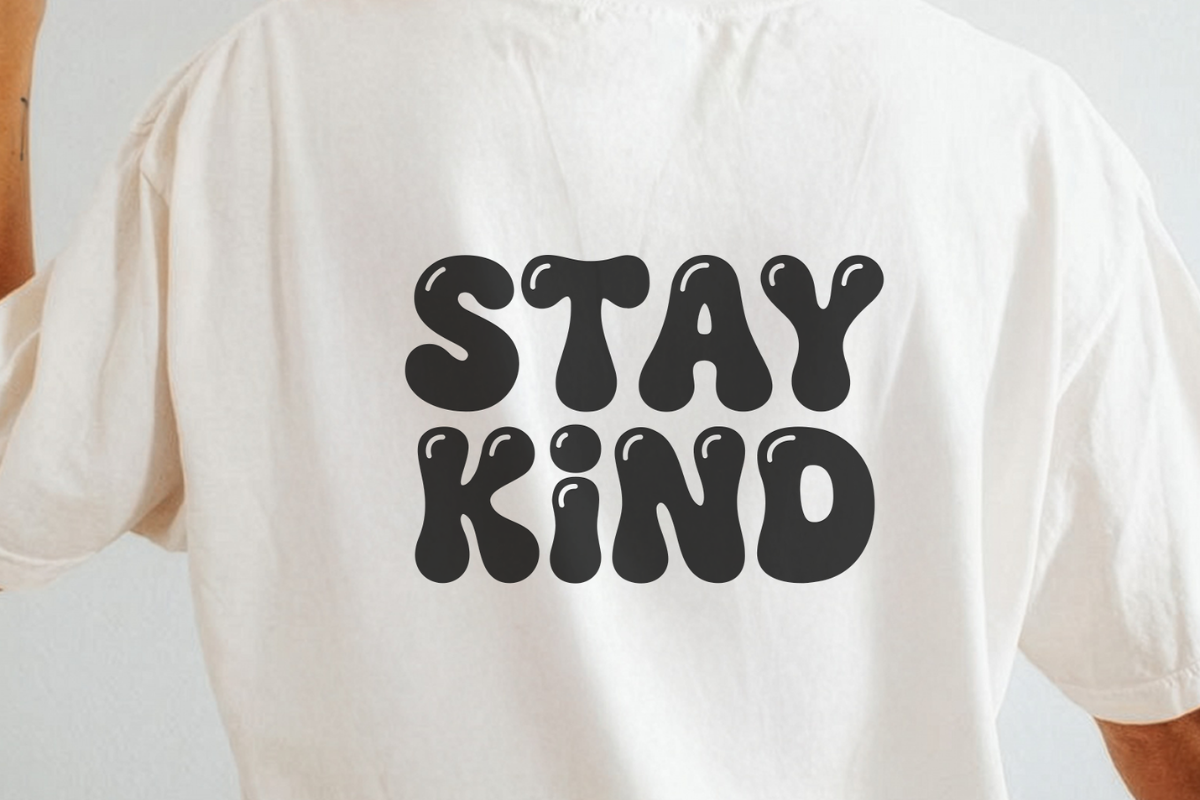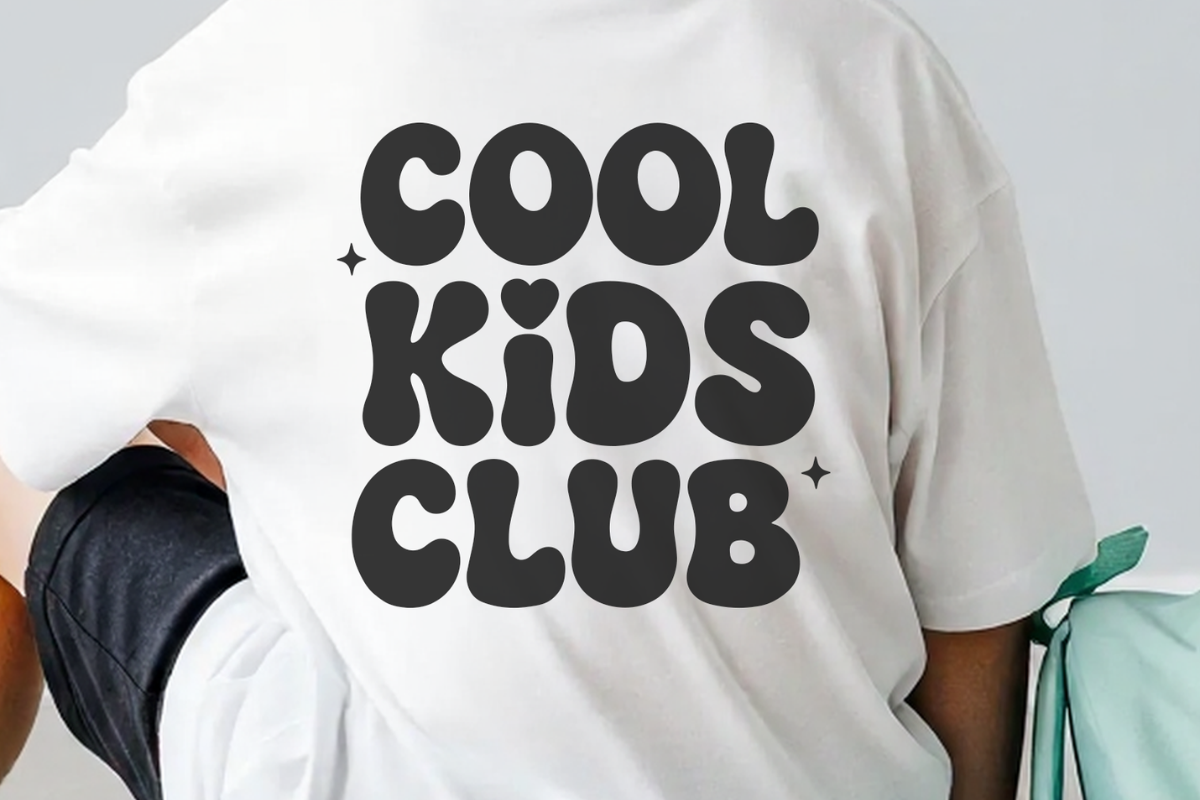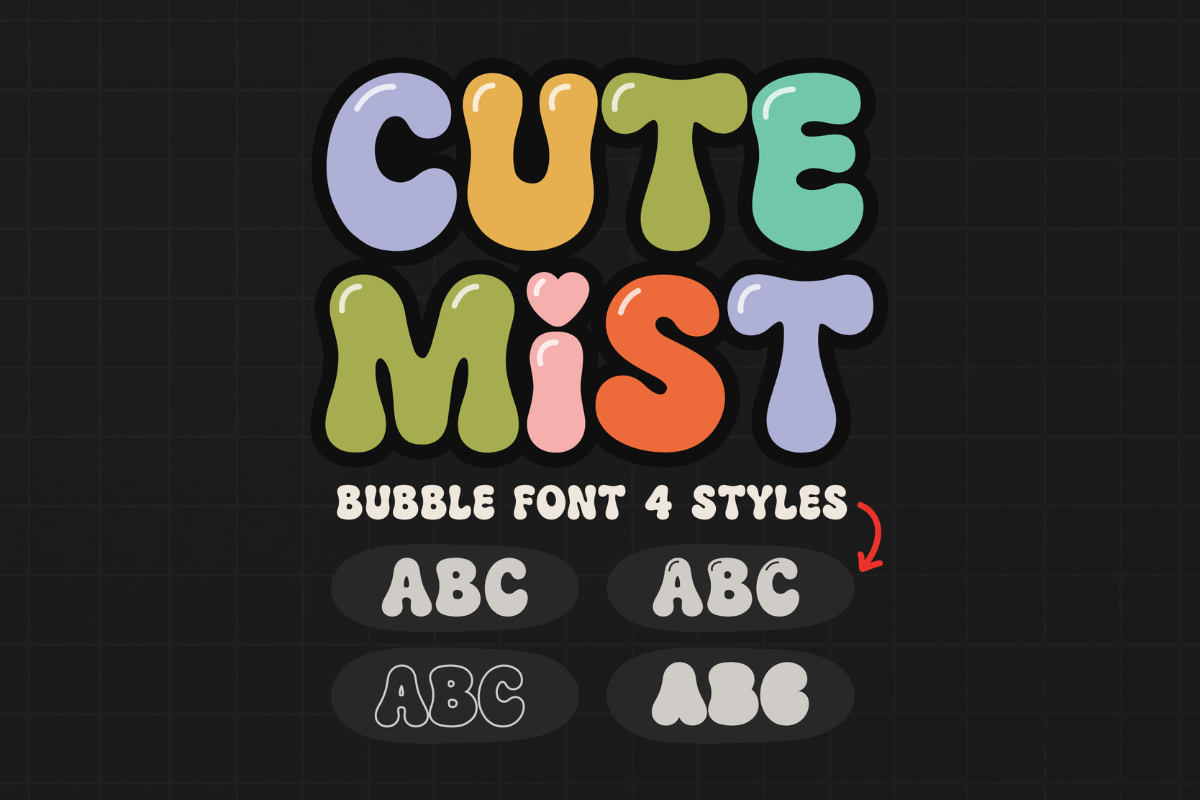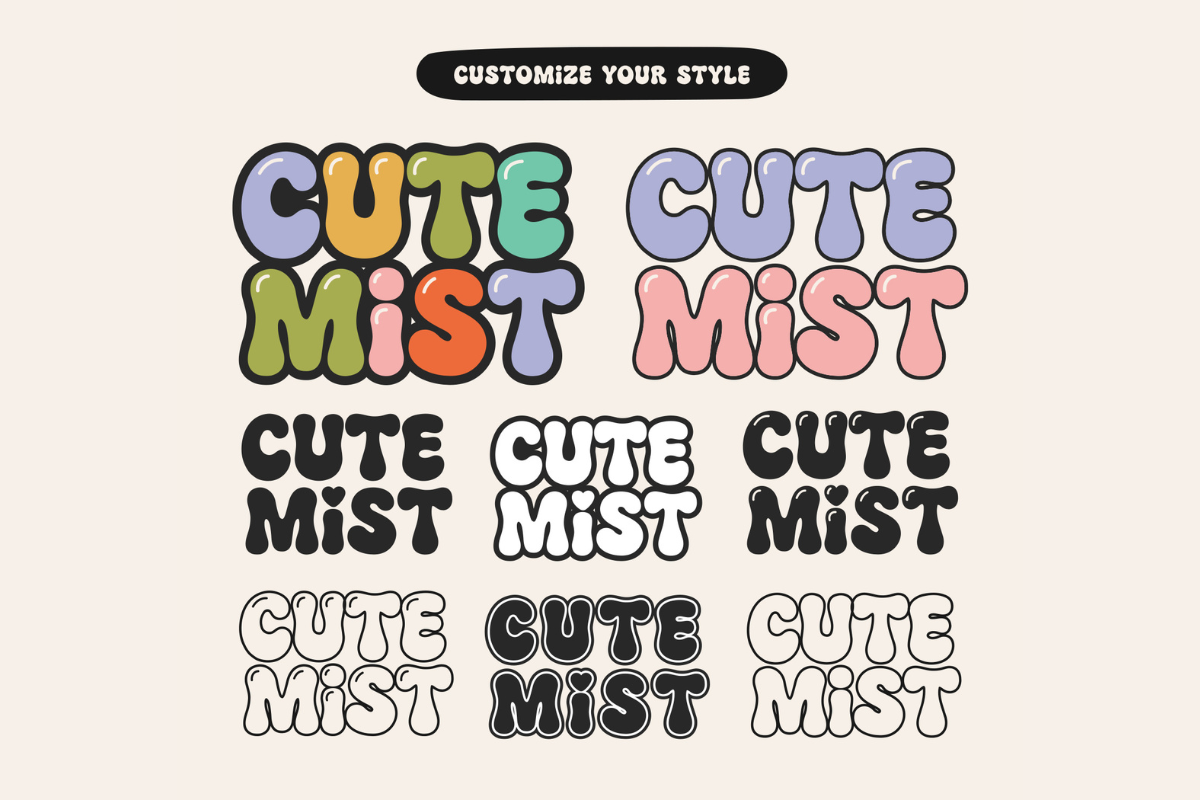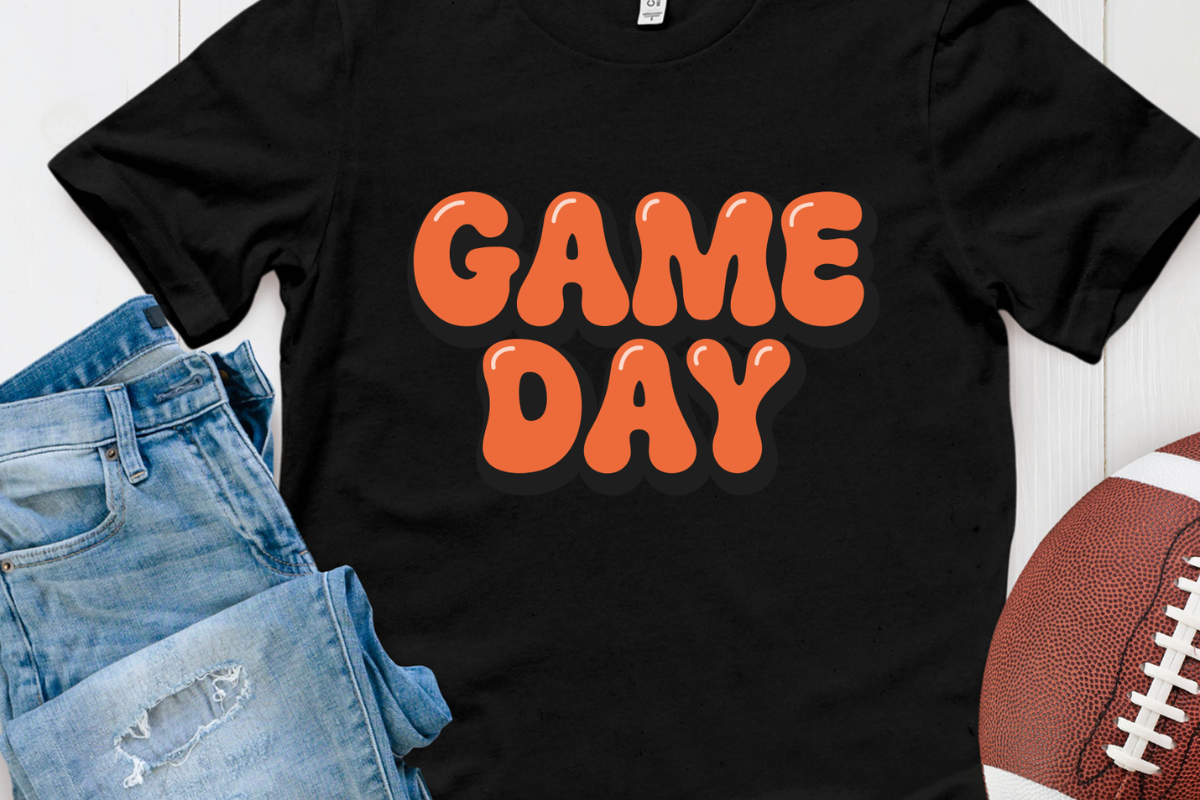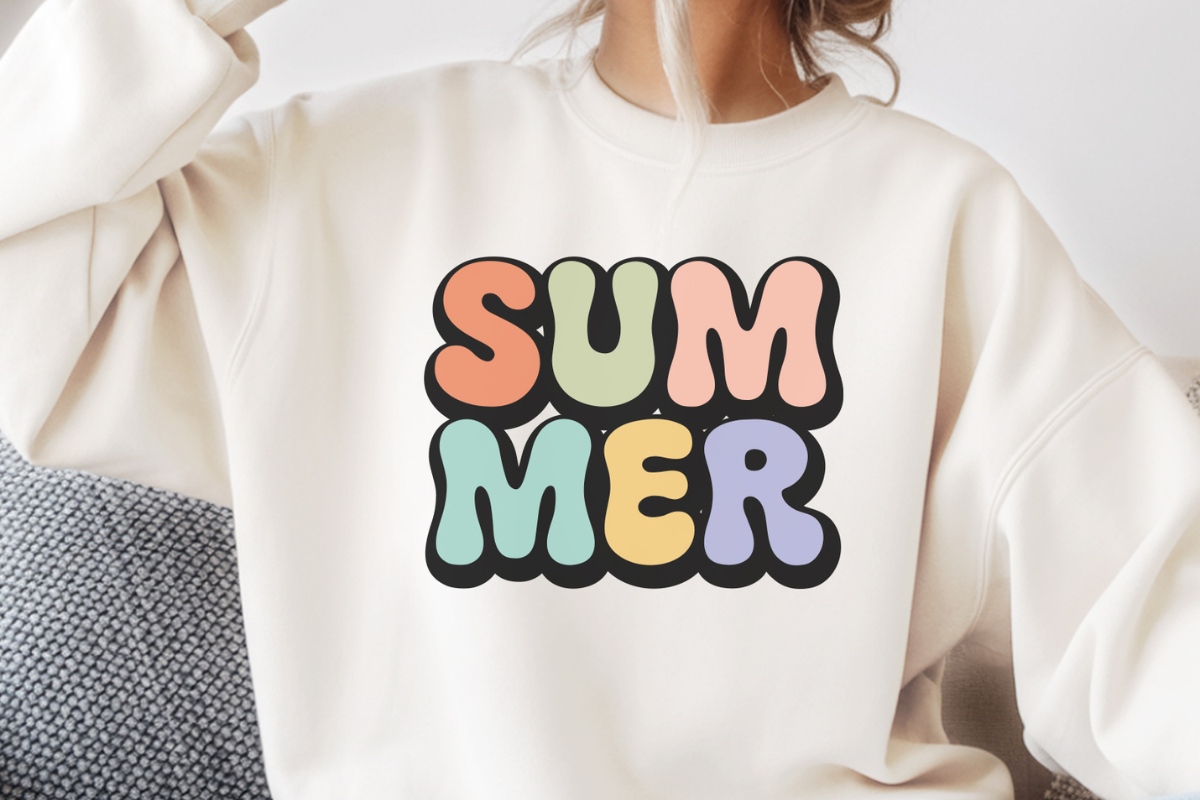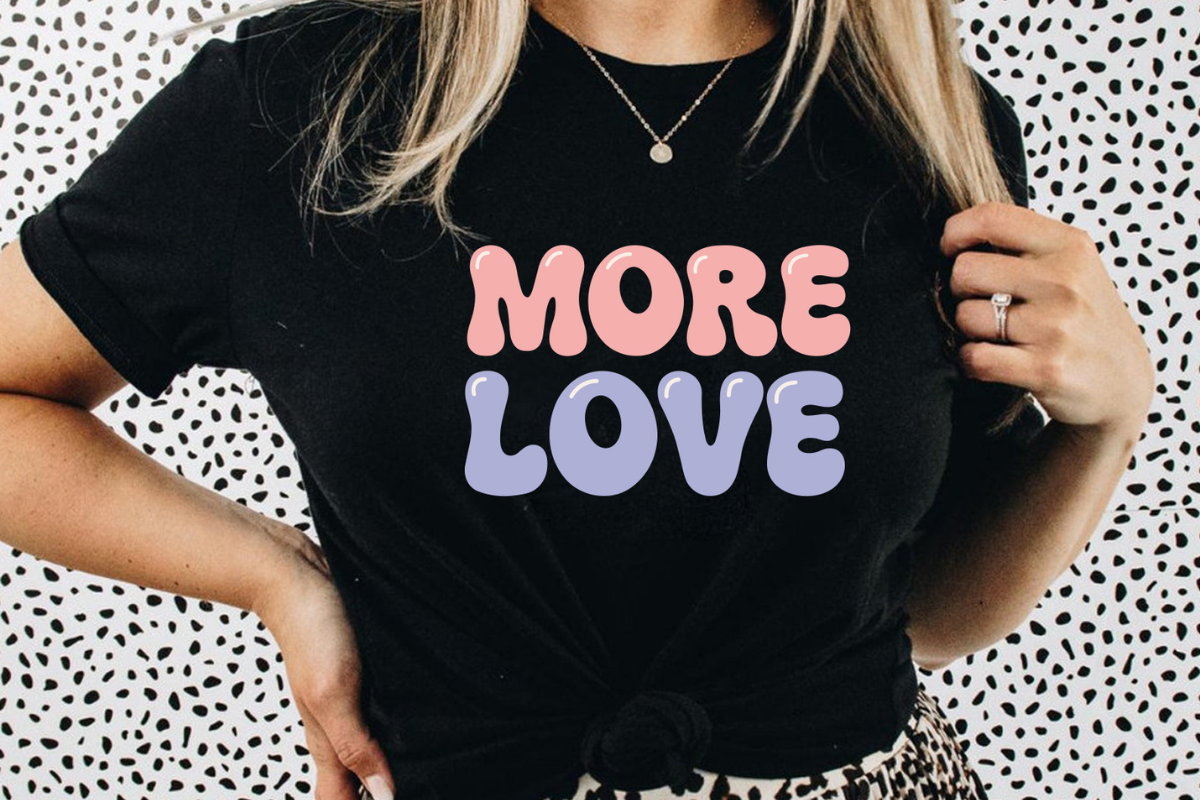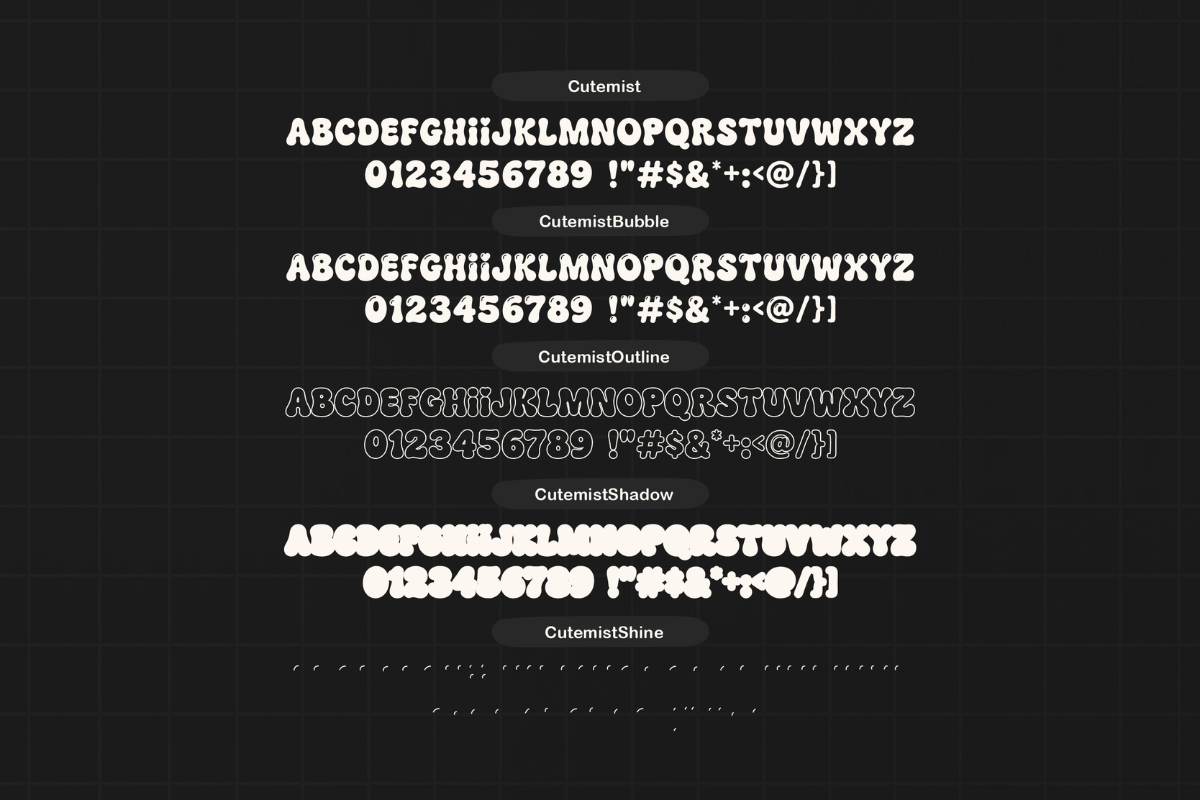
Cute Mist - Bubble Groovy Font
Cute Mist is a bubble, groovy, bubbly, retro, boho, and fun 70s display font. Whether you’re using it for crafts, digital design, presentations, or making greeting cards, this font has the potential to become your favorite, no matter the occasion! It is the best choice for creating eye-catching logos, branding, and quotes. Add it to your most creative ideas, and notice how it makes them come alive!